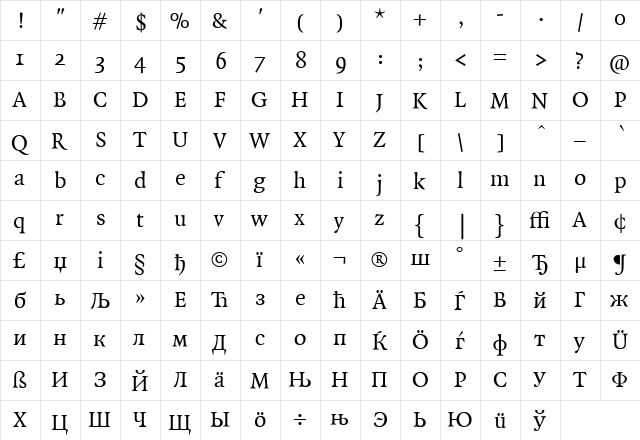
QuadraatCyrG Regular
Design Context for QuadraatCyrG Typeface
QuadraatCyrG offers clean, dependable letterforms without strong stylistic allegiance, making it a practical choice for designers who need flexibility.